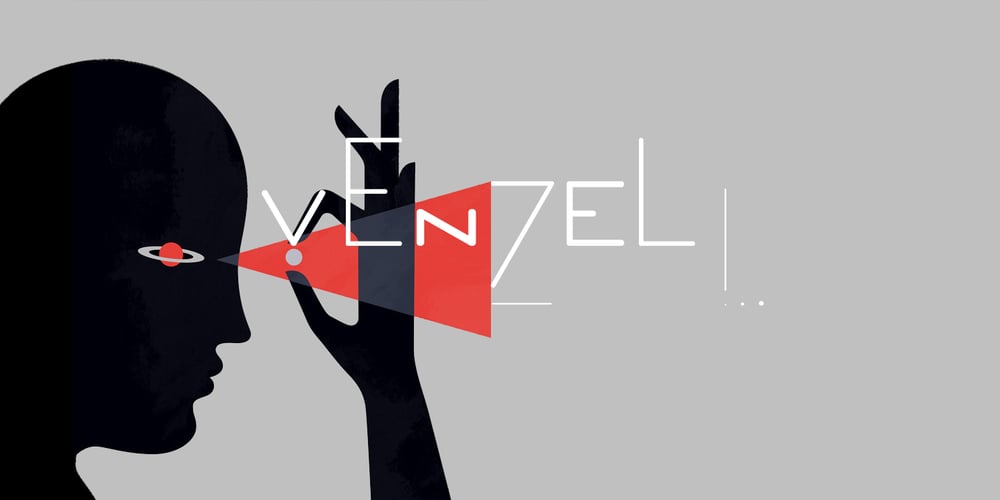
Venzel Font Family was designed by Alex Etewut and published by Etewut. Venzel contains 5 styles and family package options. Introducing new font family Venzel. It’s an interesting experimental deco all caps typeface. • 5 fonts with different wide • OTF and TTF version • alternative letters and numbers • multi-language support